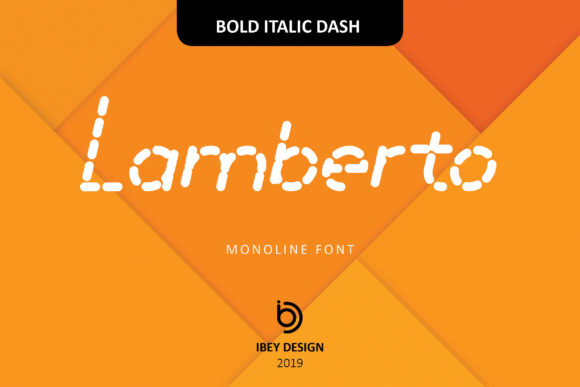
Introducing Lamberto Bold Italic Dash, the font that will transform your designs into masterpieces. This monoline display font is not just a tool; it's an expression of your creativity, a way to make your words stand out and captivate your audience.
Lamberto Bold Italic Dash is perfect for headlines, logos, posters, and any design where you want to make a statement. Its bold strokes and contemporary approach to classic lettering will give your projects an edge that's both sophisticated and modern.
Unlike ordinary fonts that blend into the background, Lamberto Bold Italic Dash demands attention. Its unique character and undeniable presence will make your designs unforgettable. Whether you're a seasoned designer or just starting out, Lamberto Bold Italic Dash is the font you need to unleash your creativity and make a lasting impression.